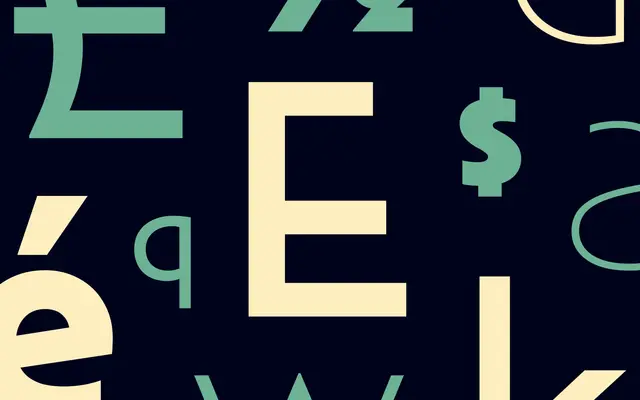
Mendl Sans
A humanist Art Deco sans by Angel Kwong with Dawn and Dusk variants, the first overtly geometric, the second more organic.
A humanist sans by Angel Kwong drawn with Art Deco elegance and a contemporary edge. The variable font runs Weight from Hairline to Black with matching italics and offers two tonal variants: Dawn leans into geometric construction with quirky period features, while Dusk softens into more organic, approachable shapes. Pairs with Mendl Serif for editorial, fashion and hospitality work that wants a 1920s accent without pastiche.
Dalton Maag describe Mendl Sans as a humanist sans embodying Art Deco elegance with a fresh twist, with two tonal variants: Dawn (overtly geometric with quirky period features) and Dusk (more organic and approachable).